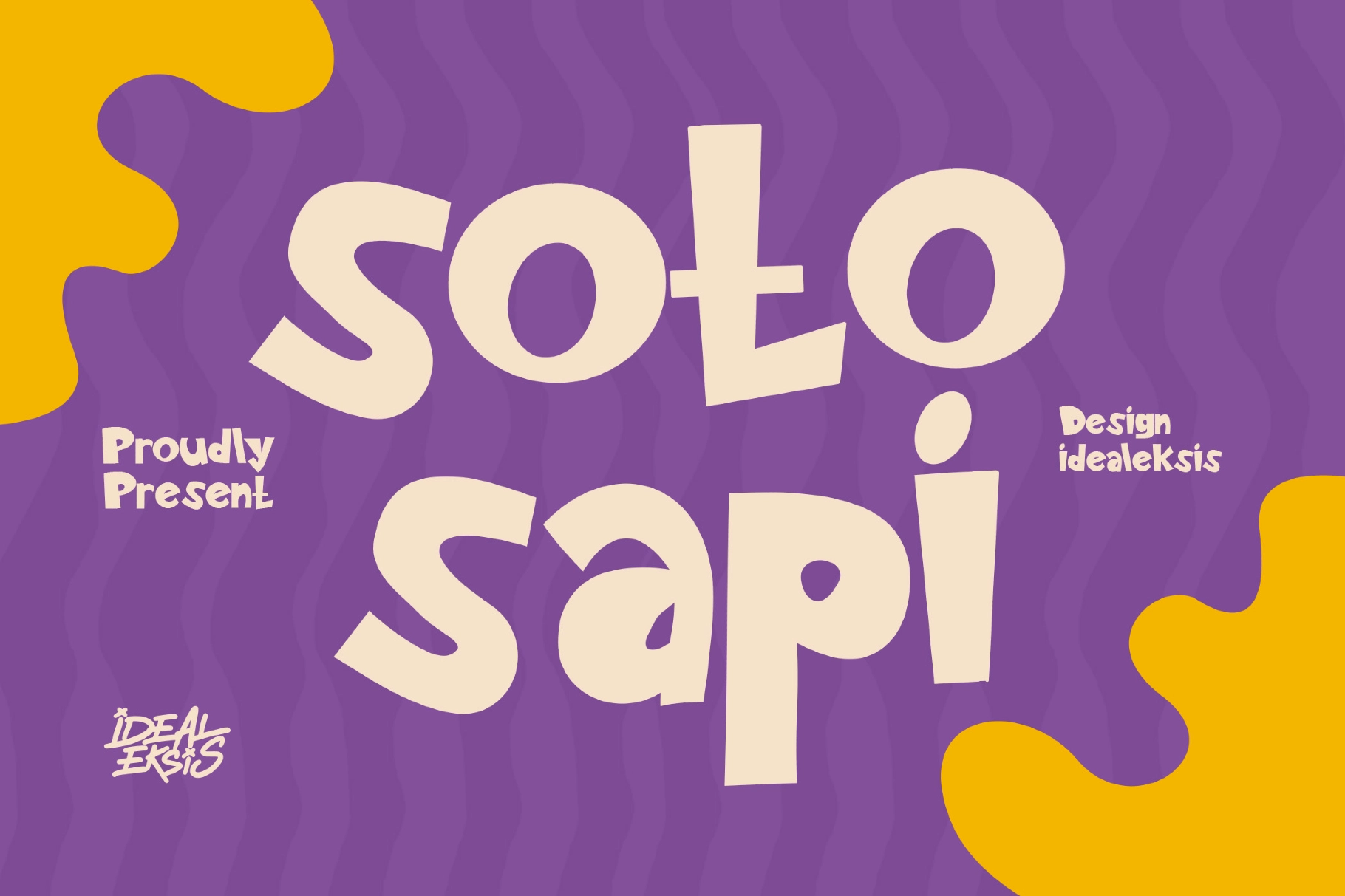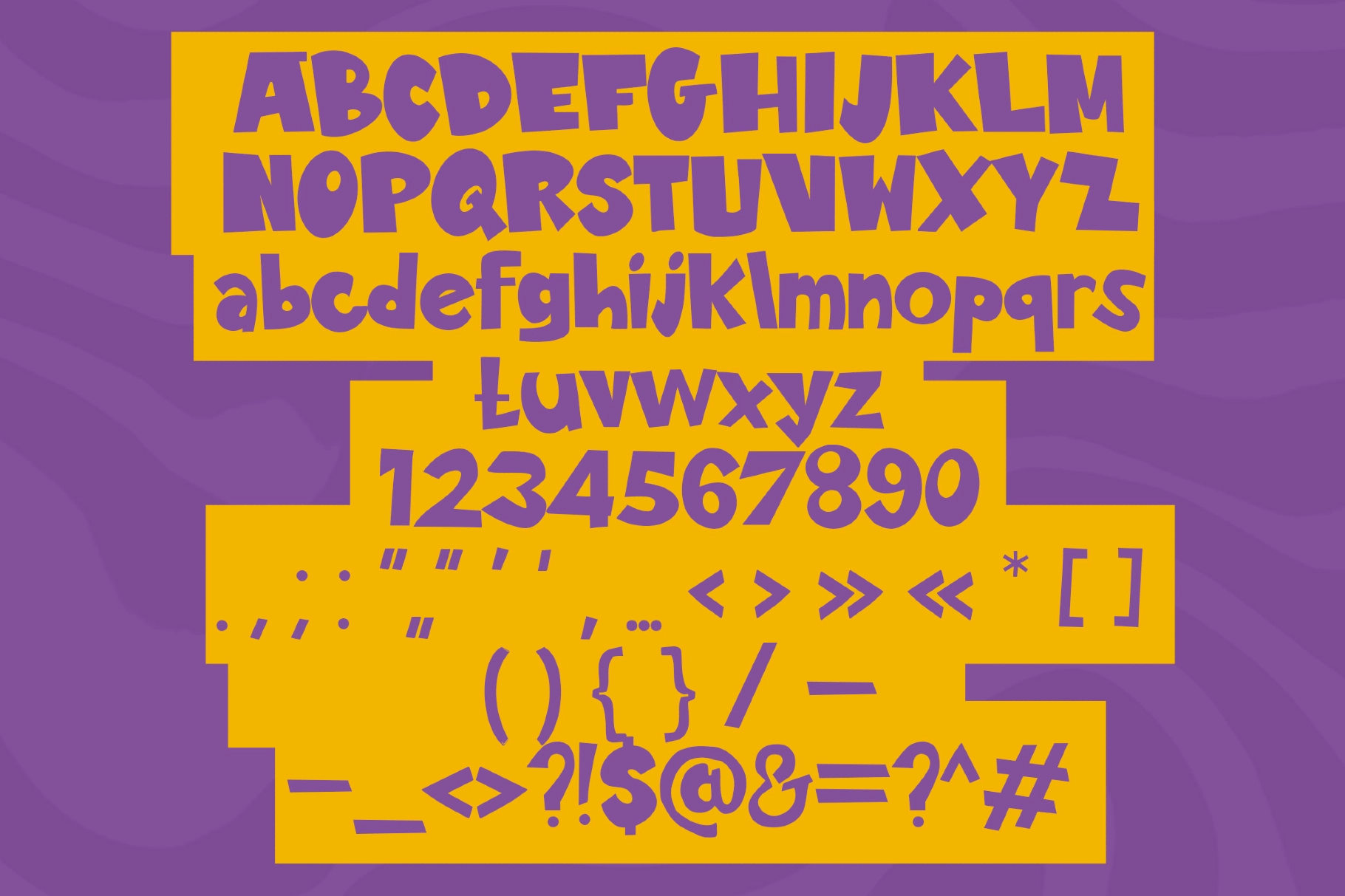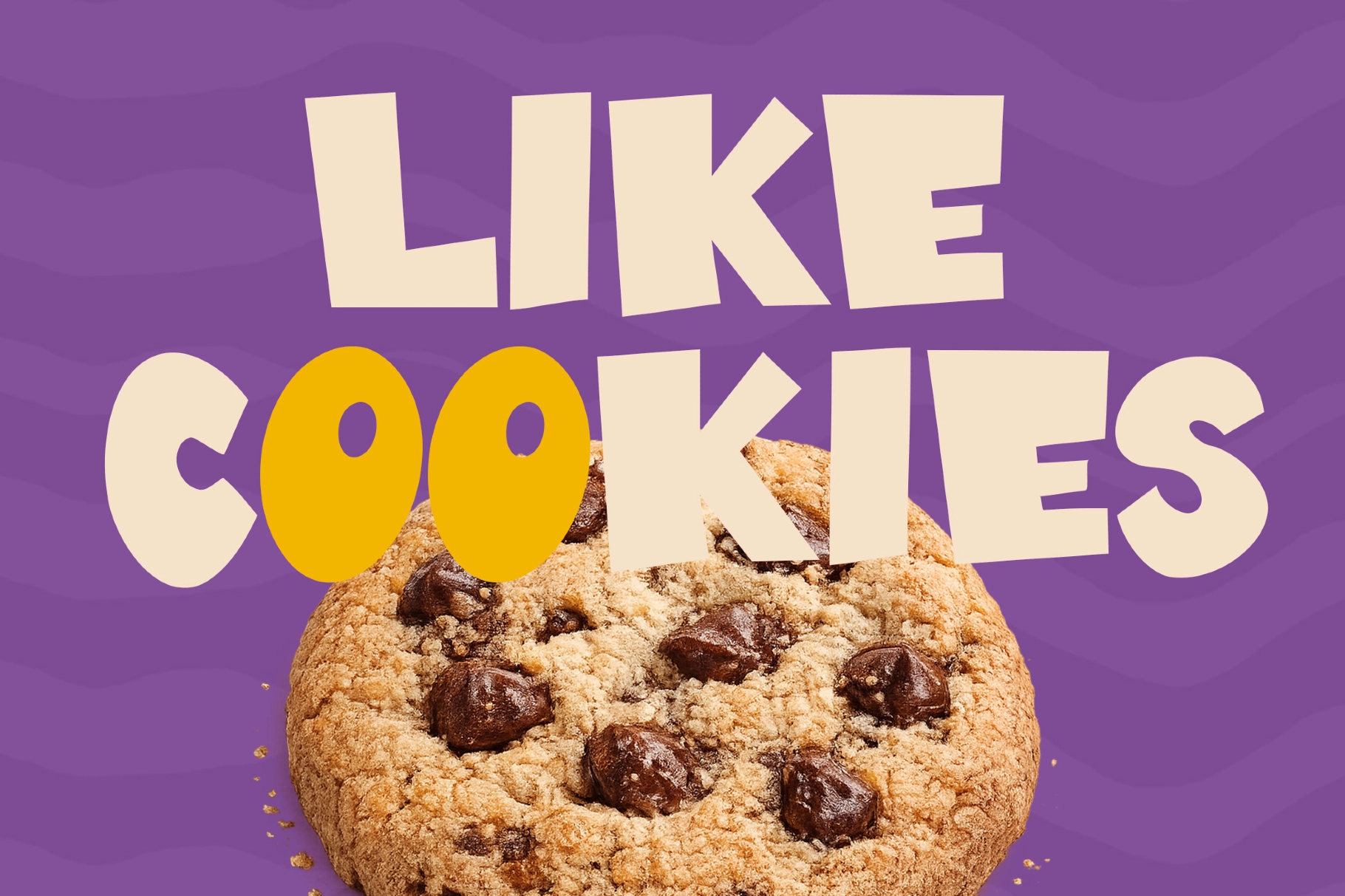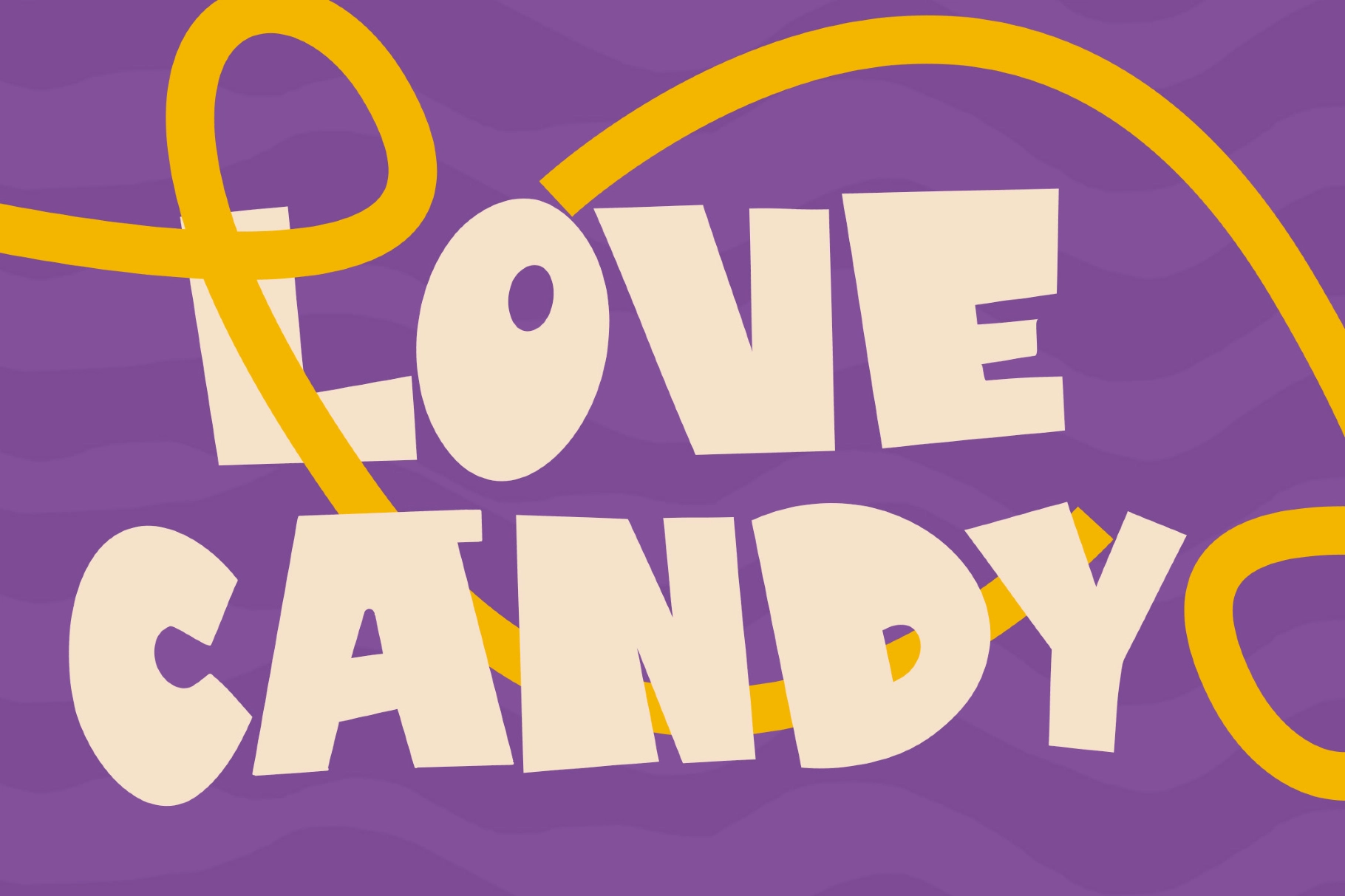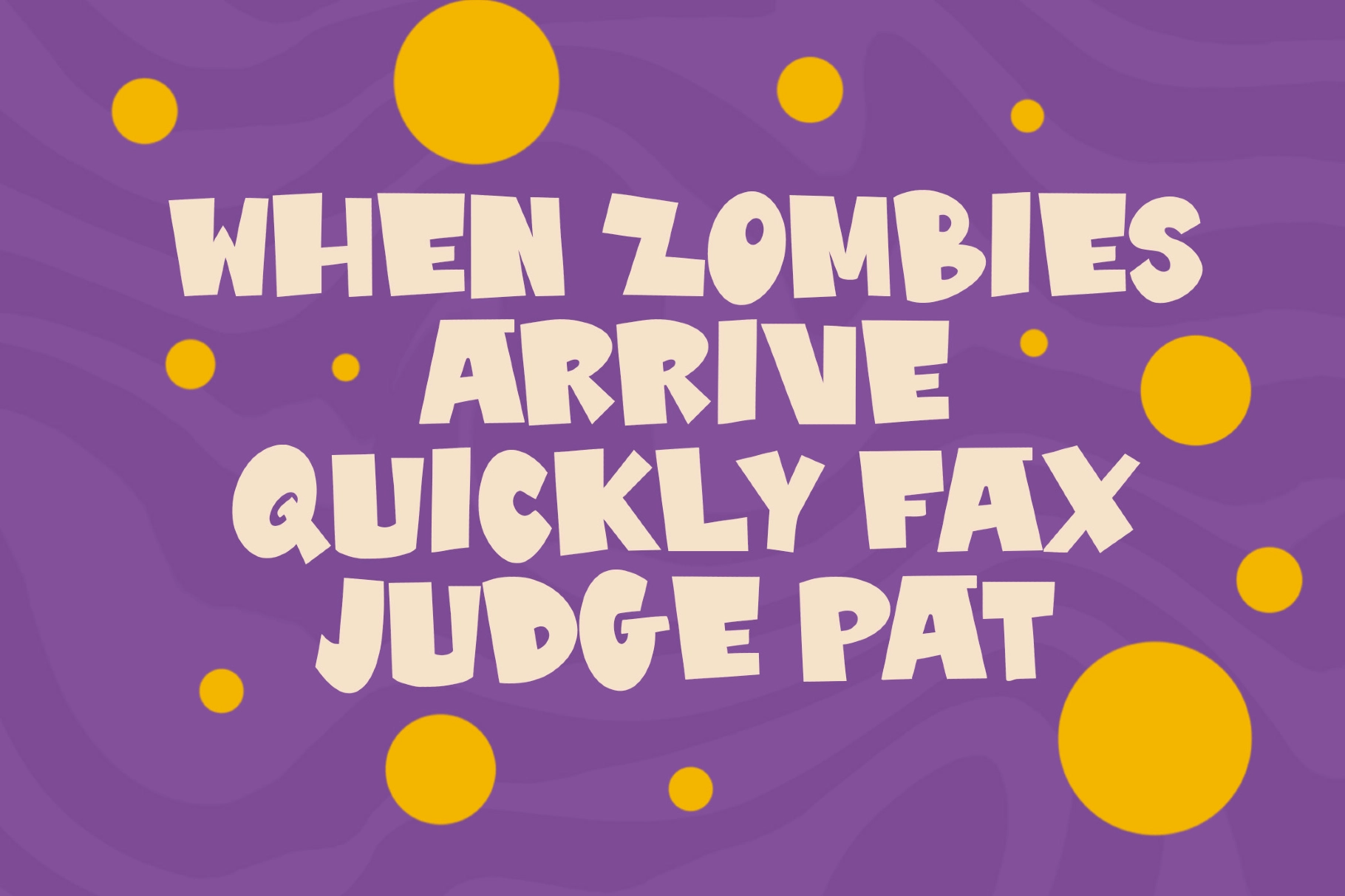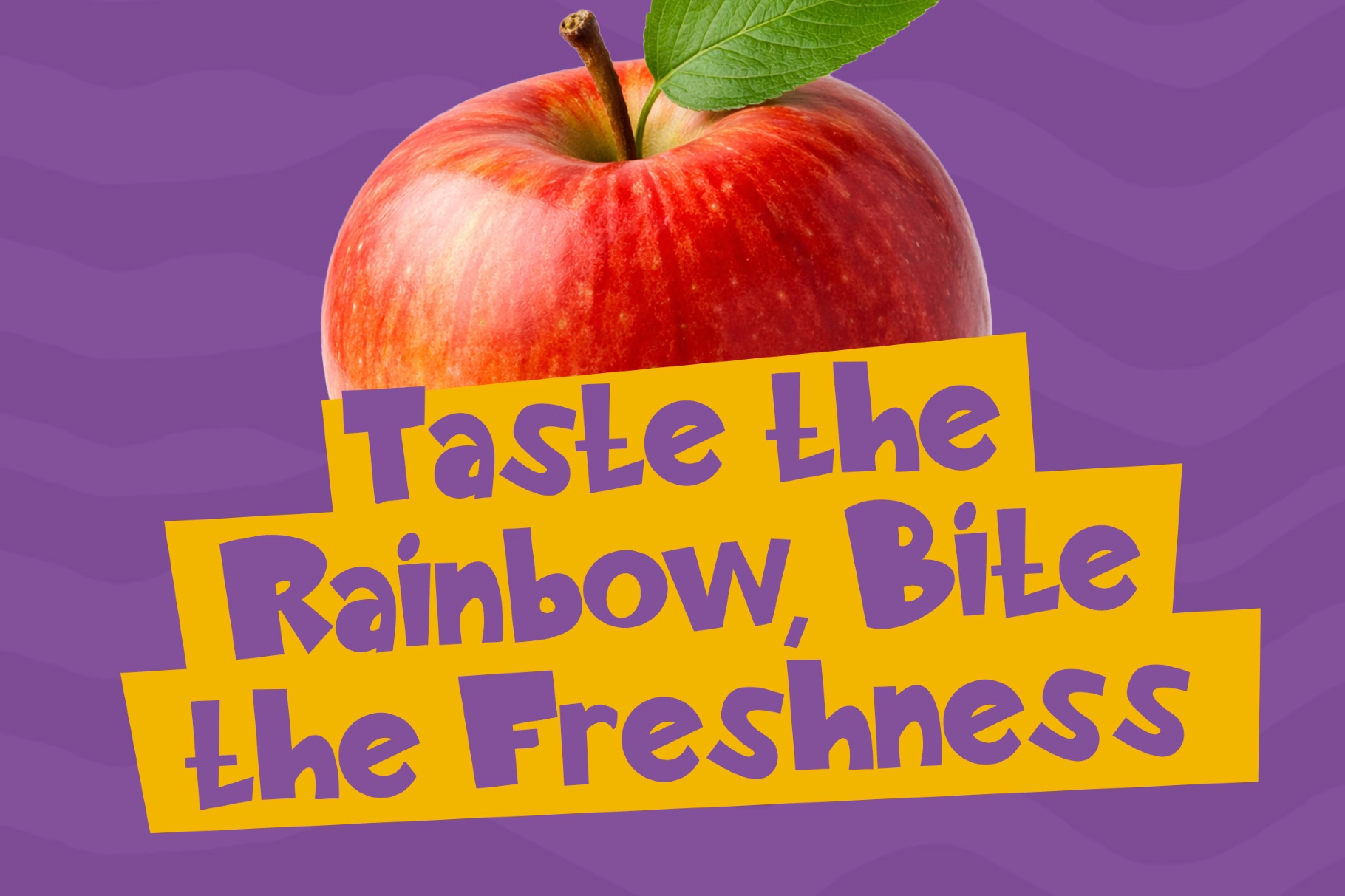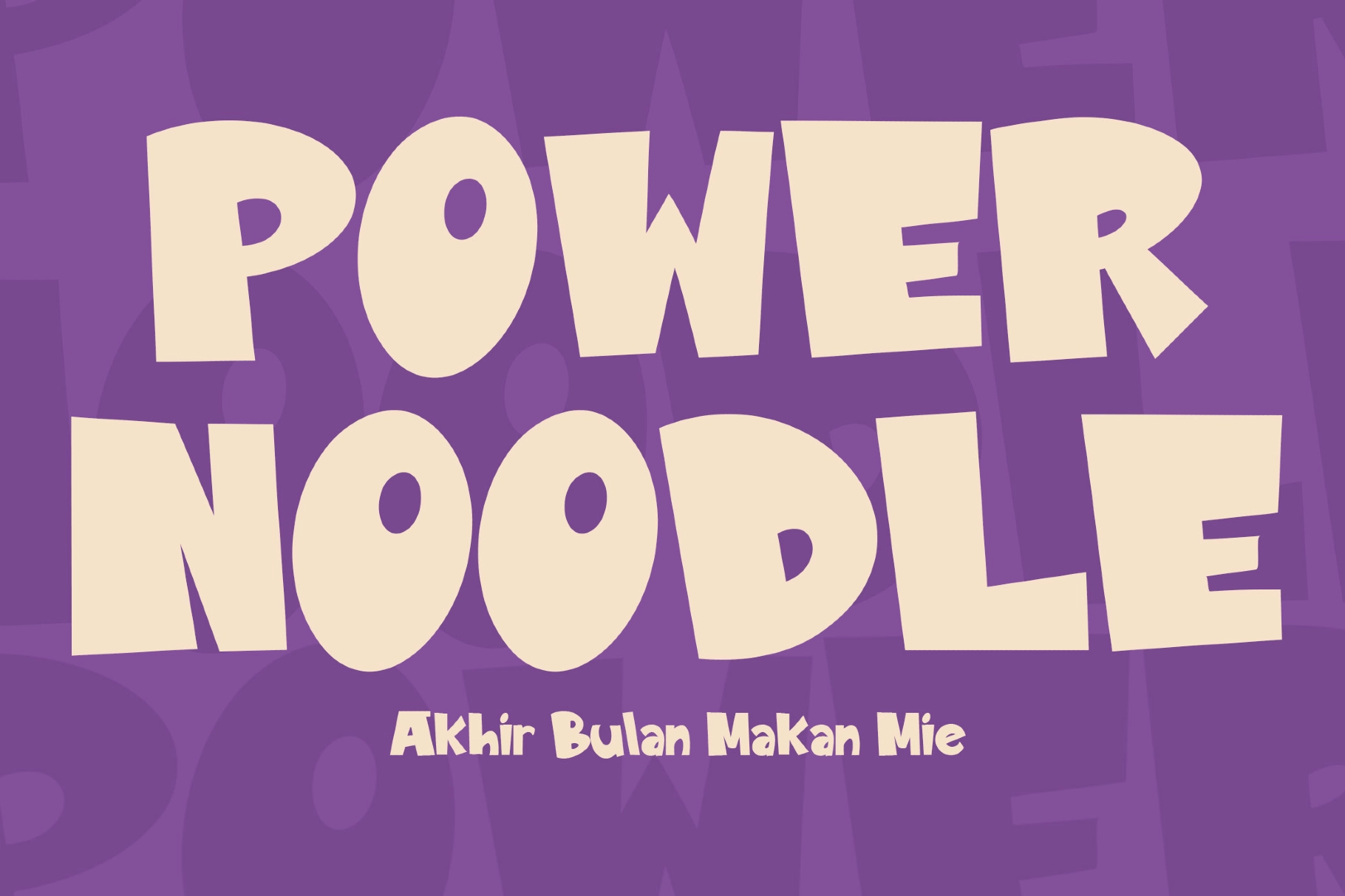
Soto Sapi – Playful Cartoon Display Font
Soto Sapi
Soto Sapi – Playful Cartoon Display Font is a bold and lively display typeface designed to bring energy, personality, and fun into your creative projects. With its chunky, hand-drawn letterforms and expressive shapes, this font instantly captures attention and adds a cheerful, playful tone to any design.
The organic stroke variations and rounded edges create a dynamic, bouncy rhythm that feels both friendly and approachable. Perfect for bold headlines, branding, and packaging, Soto Sapi works especially well in projects that need a strong visual identity with a lighthearted and creative vibe.